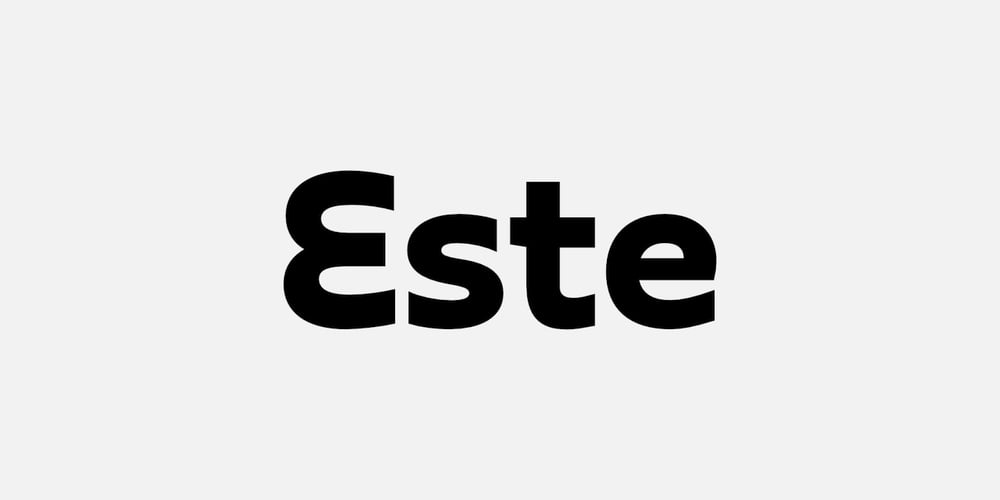
Este
Este font
Este Font Family was designed by Michael James Prewitt and published by Michael Prewitt. Este contains 7 styles and family package options. Este is a modern sans serif typeface. The family has 7 weights, ranging from Thin to Bold and is suited for branding, logo, transportation, product design, advertising and packaging. The modern feel is complimented by alternative characters via the OTF stylistic sets.